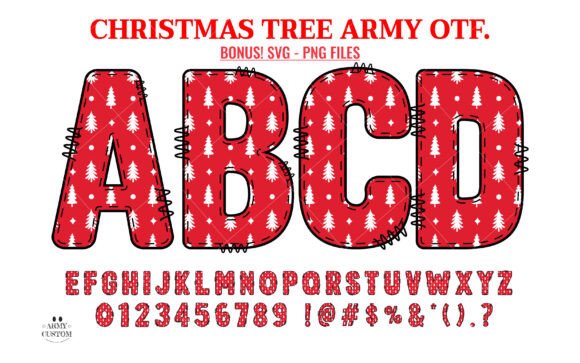
Christmas Tree Army Font: A Festive Typography to Elevate Your Holiday Designs
The holiday season is upon us, and with it comes the excitement of creating festive designs that capture the essence of Christmas. If you’re a designer, crafty enthusiast, or simply someone who loves the magic of the holiday season, you’re in for a treat. Introducing the ‘Christmas Tree Army Font’, a uniquely designed typography that embodies the festivities of Christmas in every stroke.
What is Christmas Tree Army Font?
Crafted with creative zest, each letter in the Christmas Tree Army Font dances with the warmth and joy that are synonymous with Christmas. This font is a pattern that captivates and kindles the feeling of festive cheer, immersing you in the magical spirit of the season. The design is so meticulously crafted that it instantly transports you to a world of holiday wonder, making it the perfect addition to your Christmas designs.
Key Features of Christmas Tree Army Font
- Uniquely Designed Typography: The Christmas Tree Army Font boasts a unique design that sets it apart from traditional fonts. Each letter is carefully crafted to reflect the festive spirit of Christmas.
Design Ideas to Elevate Your Holiday Projects
The Christmas Tree Army Font is incredibly versatile and can be used in various design projects, including:
- Holiday Cards and Invitations: Add a touch of festive cheer to your holiday cards and invitations with this delightful font.
- Christmas Decorations: Use the font to create custom Christmas decorations, such as banners, garlands, and signs.
- Social Media Graphics: Elevate your social media graphics with a festive touch, perfect for holiday promotions and announcements.
- Digital Art and Illustrations: Incorporate the font into your digital art and illustrations to create unique and captivating holiday-themed designs.
Benefits of Using Christmas Tree Army Font
So, why choose the Christmas Tree Army Font for your holiday designs? Here are just a few benefits:
- Instant Festive Feel: The font instantly captures the festive spirit of Christmas, making it perfect for holiday designs.
- Unique and Eye-Catching: The unique design of the font ensures that your designs stand out from the crowd.
- Versatile: The font can be used in various design projects, from digital art to physical decorations.
The Christmas Tree Army Font is a valuable addition to any designer’s toolkit, especially during the holiday season. With its unique design, versatility, and compatibility with various design programs, it’s the perfect font to elevate your holiday designs. Whether you’re a seasoned designer or a crafty enthusiast, this font is sure to bring festive cheer to your projects.